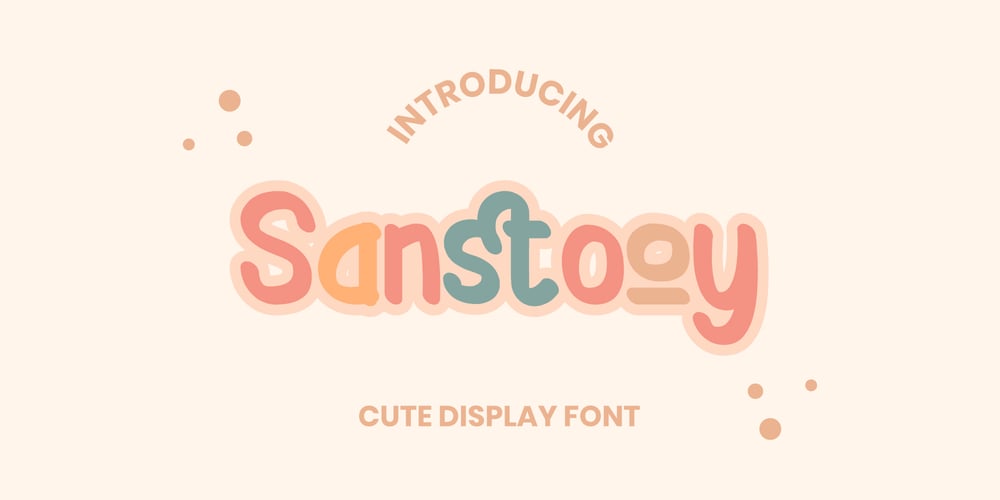
Sanstooy Font Family was designed by Apriliyanto . and published by Letterlite Studio. Sanstooy contains 1 styles and family package options. Sanstooy Cute Display FontSanstooy – a super fun and playful hand-lettered bold typeface. It is perfect for headings, flyer, greeting cards, product packaging, book cover, printed quotes, logotype, apparel design, album covers, etc.What’s Included :- Standard & Multilingual glyphs- Ligature- Alternate- Works on PC & Mac- Simple installations- Accessible in the Adobe Illustrator, Adobe Photoshop, Adobe InDesign, even work on Microsoft Word.- PUA Encoded Characters – Fully accessible without additional design software.- Fonts include multilingual support for; Afrikaans, Danish, Dutch, French, German, Indonesian, Irish, Italian, Norwegian, Portuguese, Scottish, Spanish, Swedish, Swiss.Hope you enjoy with our font!